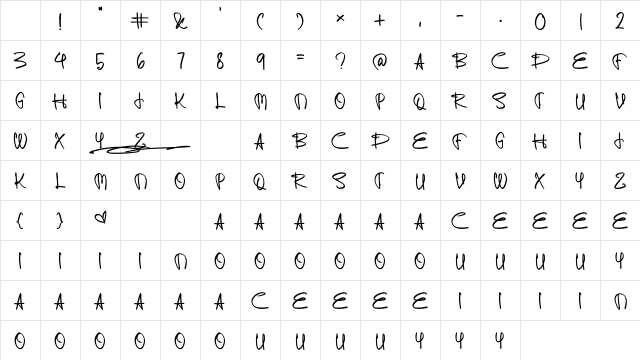
Complete ENJOYABLE Regular glyph index. Displaying only characters natively supported by ENJOYABLE Regular font.
ENJOYABLE is a composed and adaptable typeface that performs quietly and consistently across a wide range of design contexts.